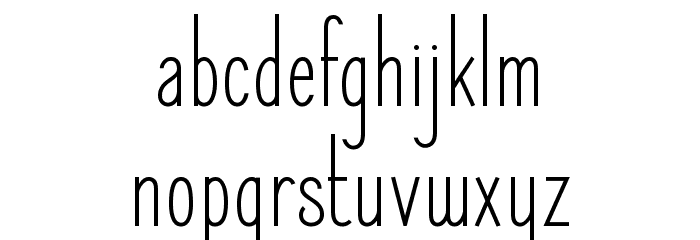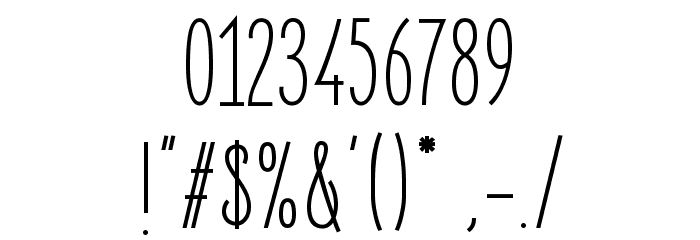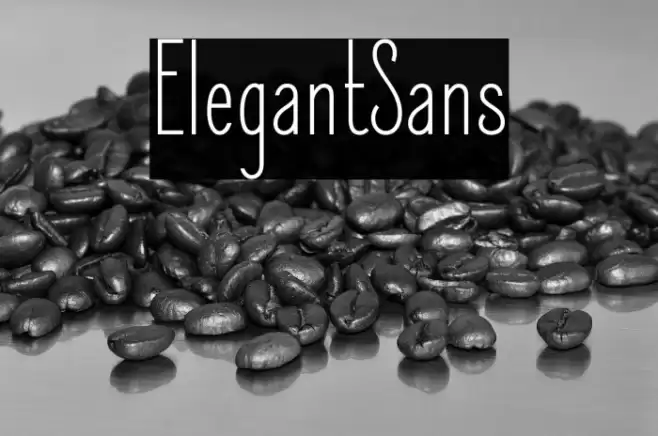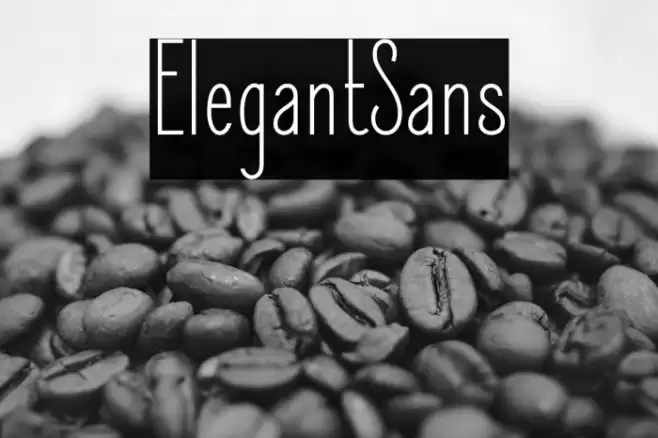
ElegantSans Font
This font features a sleek and modern design with tall, narrow letters that convey a sense of elegance and sophistication. The characters are clean and minimalistic, with a consistent stroke width that gives it a uniform appearance. The uppercase letters are slightly taller than the lowercase, adding to the font's refined look. The numerals and special characters maintain the same slender style, ensuring a cohesive aesthetic across all text. This font is ideal for projects that require a touch of modernity and class, such as branding, editorial design, and digital interfaces.
A sleek, modern font with tall, narrow letters and a uniform stroke width.